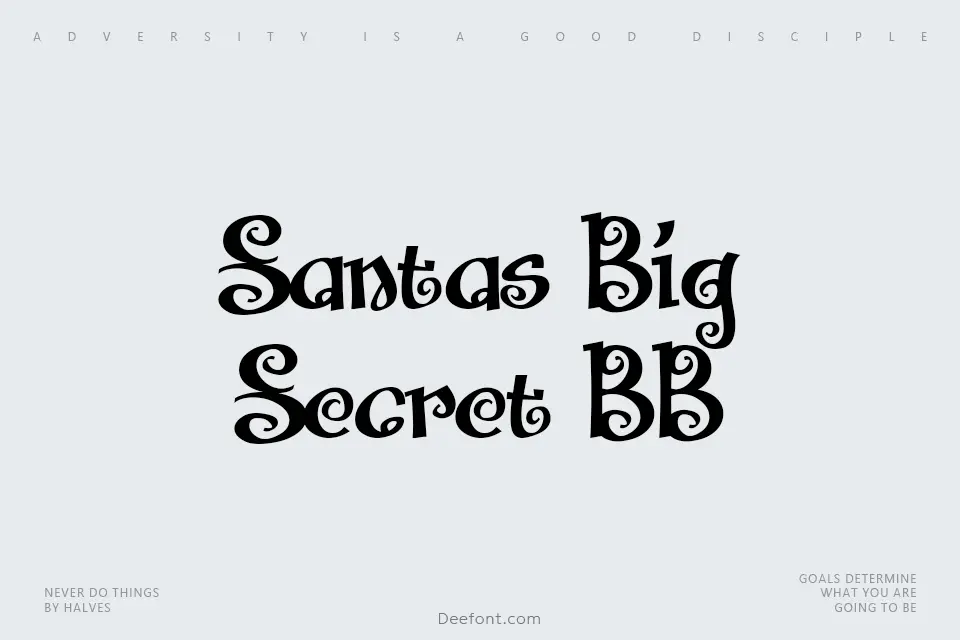
Santas Big Secret BB Font
Santas Big Secret BB is a festive decorative display font designed by Blambot, perfect for holiday-themed creative projects. With over 100 characters including uppercase and lowercase letters, this font combines whimsical cartoon styling with holiday charm. Ideal for Christmas cards, posters, greeting designs, and festive typography, it brings joyful personality and visual appeal to your creative work while maintaining readability for headline applications.